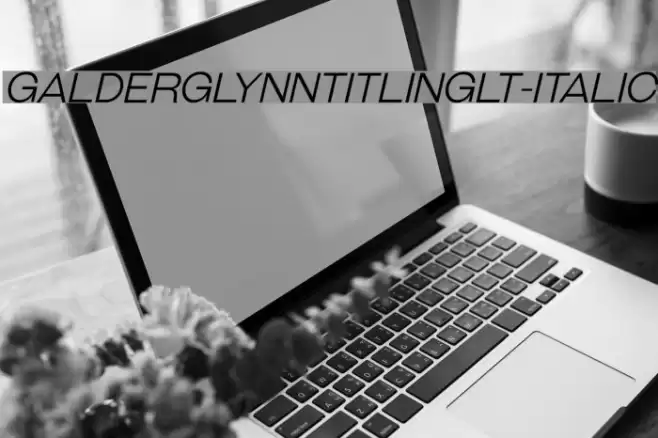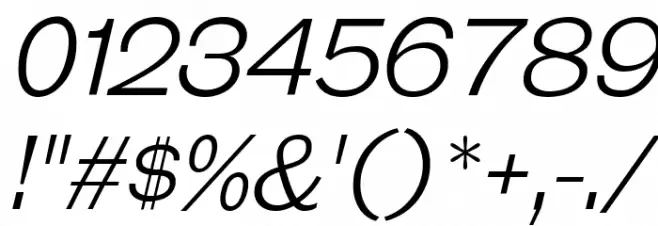
GalderglynnTitlingLt-Italic Font
GalderglynnTitlingLt-Italic Description
This font features a sleek, modern design with a distinct italic slant, giving it a dynamic and forward-moving appearance. The characters are elegantly elongated, with smooth curves and sharp edges that create a sense of sophistication and style. The uppercase letters are bold and commanding, while the lowercase letters maintain a consistent flow, enhancing readability. The numerals are clear and well-proportioned, ensuring they stand out effectively. Special characters are thoughtfully designed to match the overall aesthetic, making this font versatile for various applications.
A sleek, modern italic font with elongated characters and smooth curves from Uncategorized fonts.
- Proposed Projects: Ideal for branding, advertising, and editorial design projects that require a modern and stylish touch.
- Use Case: Headlines, Logos, Editorial Design